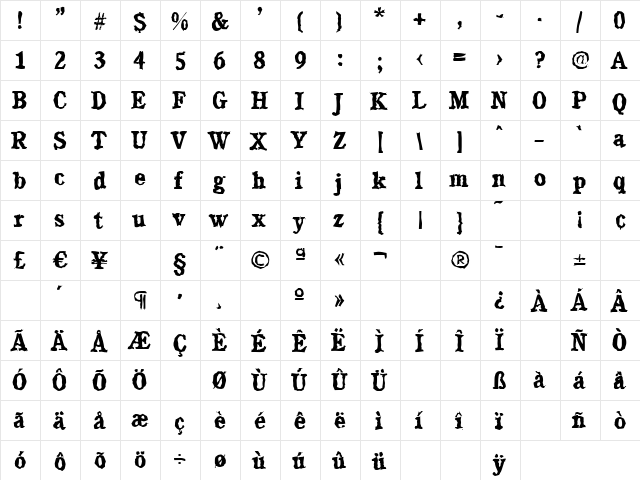
DanielBeckerRandom Bold
Design Context for DanielBeckerRandom Typeface
DanielBeckerRandom takes a measured approach to typography — its balanced proportions and neutral character make it a reliable workhorse for both digital and print work. Its bold stroke weight gives it real presence on the page.